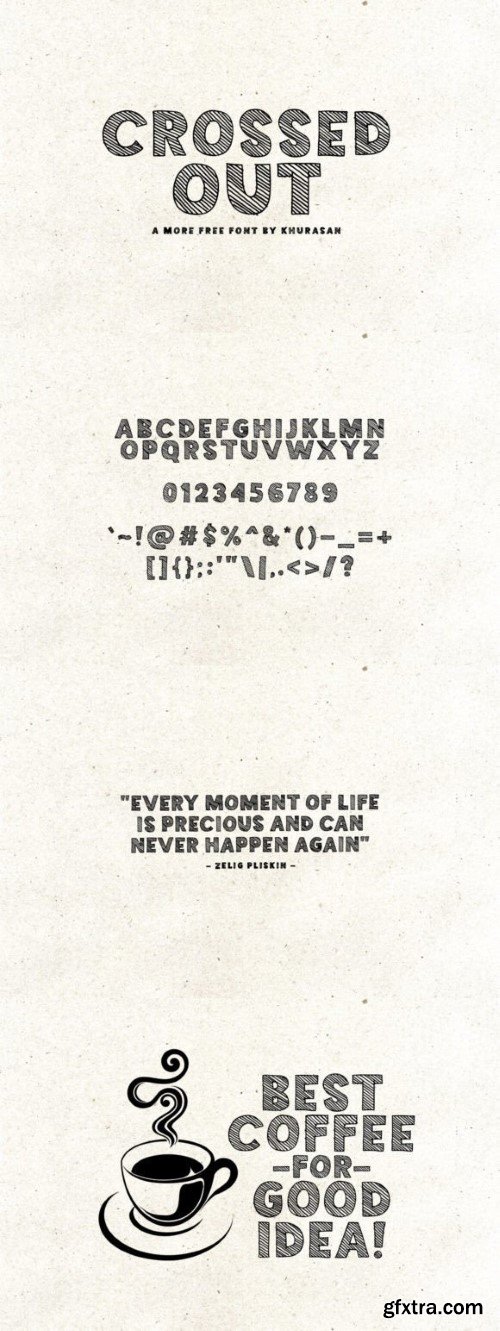
被遮住的字体
Crossed Out is a modern handwritten display font perfect for posters, logos, magazines, book covers, banners, and many more! Get this amazing font, and use it to create lovely designs. It can easily be matched to an incredibly large set of projects, so add it to your creative ideas and notice how it makes them stand out!